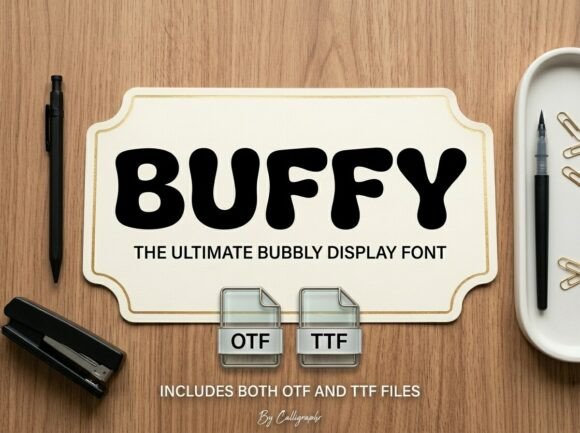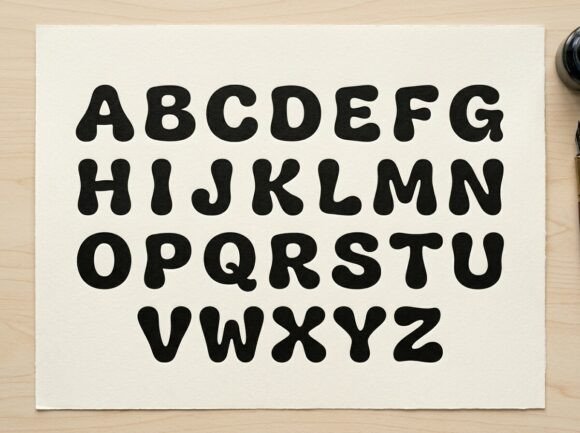
Bounce into Your Next Creative Project with Buffy Font
Are you tired of using the same old fonts for your creative projects? Look no further than Buffy, a high-energy display typeface that’s sure to capture the attention of your audience. With its playful and pop-culture vibe, Buffy is the perfect choice for designers and crafters looking to add a touch of fun and personality to their work.
The Unique Characteristics of Buffy Font
Buffy font features ultra-thick, rounded letterforms that are uniquely characterized by rhythmic, organic curves and a soft-yet-sturdy structural weight. This distinctive design bridges the gap between retro 70s nostalgia and modern youth-centric branding, making it an ideal choice for a wide range of creative projects. Whether you’re working on a logo, social media header, or packaging design, Buffy is sure to make a statement.
Retro 70s Nostalgia Meets Modern Youth-Centric Branding
Buffy font’s unique blend of retro and modern elements makes it a versatile choice for designers and crafters. The font’s rounded letterforms and organic curves evoke the nostalgia of the 1970s, while its soft-yet-sturdy structural weight gives it a modern, youthful feel. This makes Buffy an excellent choice for brands looking to appeal to a younger audience, as well as those seeking to add a touch of retro flair to their designs.
Ideal Uses for Buffy Font
So, what types of projects are best suited for Buffy font? Here are a few ideas to get you started:
- Independent toy store identities: Buffy’s playful, high-energy vibe makes it a natural fit for toy stores and other businesses that cater to kids and families.
- Boutique confectionery logos: The font’s sweet, bubbly personality is perfect for bakeries, candy stores, and other sweet treat businesses.
- Creative streetwear labels: Buffy’s modern, youthful feel makes it an excellent choice for streetwear brands and other fashion labels that want to appeal to a younger audience.
- High-impact social media headers: The font’s bold, attention-grabbing design makes it perfect for social media headers and other online applications where you want to make a statement.
Why Choose Buffy Font?
So, what sets Buffy font apart from other display typefaces on the market? Here are a few reasons why designers and crafters are falling in love with Buffy:
- Unique and distinctive design: Buffy’s ultra-thick, rounded letterforms and rhythmic, organic curves make it a one-of-a-kind font that’s sure to stand out.
- Buffy’s playful, high-energy vibe makes it perfect for brands that want to convey a sense of fun and personality.
- Versatile: Buffy font is suitable for a wide range of creative projects, from logos and packaging to social media headers and more.
In conclusion, Buffy font is a high-energy display typeface that’s perfect for designers and crafters looking to add a touch of fun and personality to their creative projects. With its unique blend of retro and modern elements, friendly personality, and versatile design, Buffy is sure to bounce its way into your heart and become a staple in your design toolkit.